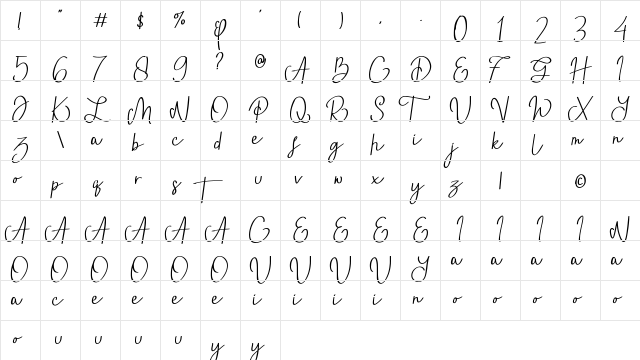
Astriany Regular
| Foundry | RantauType |
| Designer | Yudi Pratama Chandra |
Design Context for Astriany Typeface
Astriany takes a measured approach to typography — its balanced proportions and neutral character make it a reliable workhorse for both digital and print work.